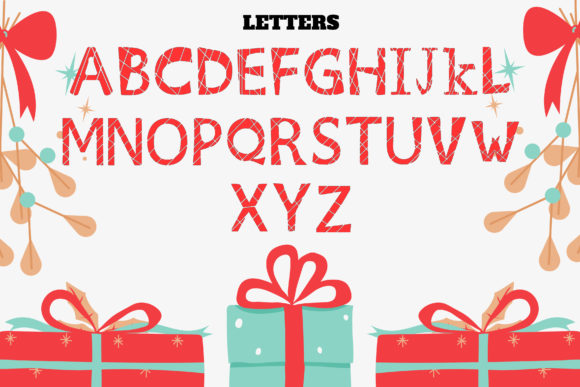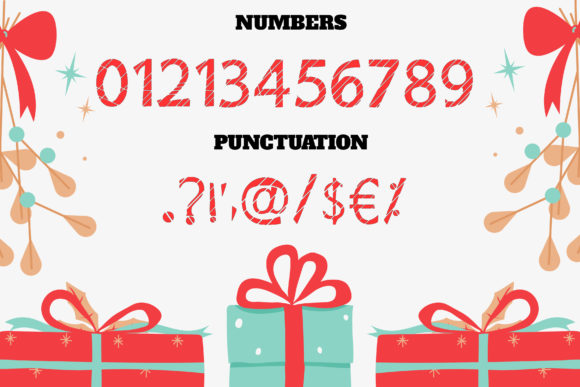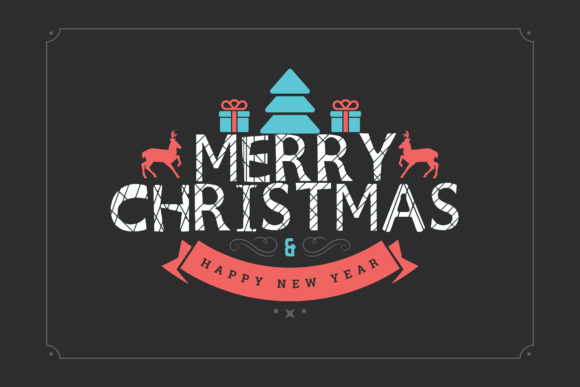
Introduction to Parcel Wrap Font
Have you ever stumbled upon a design that sparks pure joy and makes you want to create something magical? That’s exactly what happened to us when we discovered the Parcel Wrap Font. This delightful display font is a game-changer for designers looking to add a touch of whimsy to their creative projects.
As a valuable design resource, Parcel Wrap Font is the perfect addition to any designer’s toolkit. With its high-quality, free download, and transparent background, it’s an ideal choice for designers who want to add a playful twist to their designs without sacrificing quality. Whether you’re working on a children’s activity or a school project, Parcel Wrap Font is sure to bring a smile to your face and a dash of creativity to your work.
Let’s dive into the world of Parcel Wrap Font and explore what makes it so special.
Key Features of Parcel Wrap Font
- Unique design: Features a stylized, hand-drawn design element that adds a touch of whimsy to your project.
Honest Review: Parcel Wrap Font
As a designer, I’m always on the lookout for unique and high-quality design resources to enhance my creative projects. Recently, I came across the Parcel Wrap Font, a free download that caught my attention.
What works well is the font’s versatility – it’s perfect for use on transparent backgrounds, allowing your designs to shine. The Parcel Wrap Font is also highly customizable, making it suitable for various design styles and themes.
- ✨ Unique design aesthetic: The font’s quirky and playful feel makes it a standout in any design project.
- ✨ High-quality glyphs: The Parcel Wrap Font features well-designed glyphs that are perfect for use in digital and print projects.
However, I did encounter some limitations with the Parcel Wrap Font. One of the main issues is the lack of extensive language support, which may limit its use in certain design projects.
Overall, I’m impressed with the Parcel Wrap Font’s design and versatility. While it may not be suitable for every project, it’s a great addition to any designer’s toolkit. If you’re looking for a unique and high-quality font for your creative projects, the Parcel Wrap Font is definitely worth checking out.
Tips for Getting the Most Out of Parcel Wrap Font
For optimal results, use the Parcel Wrap Font in conjunction with a high-quality background image or texture. Experiment with different font sizes and colors to achieve the desired look.
Common Use Cases for Parcel Wrap Font
The Parcel Wrap Font is ideal for wrapping gifts, creating packaging designs, and adding a professional touch to your branding materials.